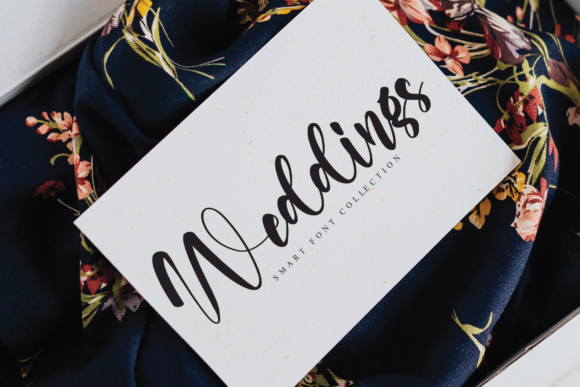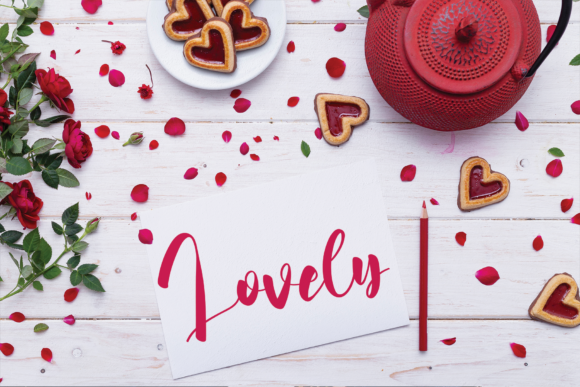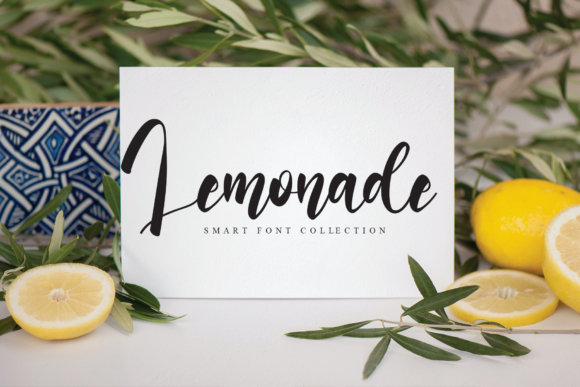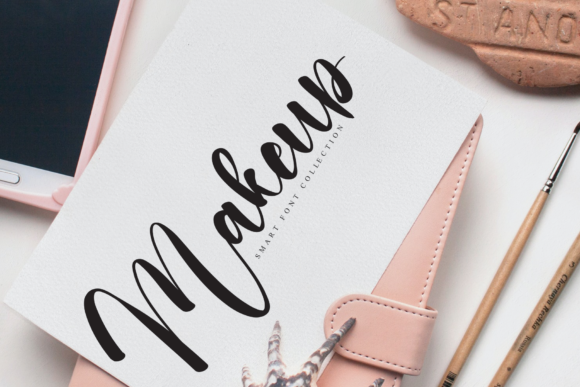
The Joy of Handwritten Touch: Discovering the Downright Font
Have you ever felt the urge to add a personal touch to your design, to make it stand out from the crowd? Maybe it was a late-night brainstorming session, or a sudden flash of inspiration while flipping through a magazine. Whatever the moment, it’s a creative spark that can make all the difference in your work. And for designers looking to add a little extra love to their projects, the Downright Font is a timeless choice that never fails to impress.
This classic handwritten font is more than just a pretty face – it’s a versatile tool that can be used in everything from greeting cards to kids’ crafts. And with its sweet, endearing quality, it’s guaranteed to add a special something to your next design. Whether you’re a seasoned pro or just starting out, the Downright Font is a valuable asset that’s sure to become a favorite in your design arsenal.
Downright Font Key Features
- Unique Characteristics: Downright Font is designed with a unique blend of modern and vintage elements, featuring intricate details and subtle texture, making it suitable for a wide range of design applications.
- Kerning and Ligatures: The font includes advanced kerning and ligature features, ensuring that text sets are visually appealing and well-spaced, even in complex compositions.
- Font Families: Downright Font is part of a comprehensive font family, offering a wide range of styles, from serif and sans-serif to script and display fonts, providing designers with endless creative possibilities.
Designer Review: Downright Font
Downright Font is a unique and interesting typeface that caught my attention. ✨ Here are some aspects where it excels:
- Experimental vibe: Downright Font has a quirky, hand-drawn feel that’s perfect for designers looking to add some personality to their projects.
- Highly legible: Despite its unusual appearance, the font is surprisingly easy to read, making it a great choice for body text or captions.
- Customization options: The font comes with a range of weights and styles, allowing designers to tailor the look to suit their needs.
- Limited suitability: Downright Font may not be the best choice for formal or traditional projects, as its unconventional design may clash with the tone.
- Difficulty in pairing: The font’s unique style can make it challenging to pair with other fonts, which may limit its versatility.
- Distortion in smaller sizes: At very small sizes, the font can become distorted and difficult to read.
Overall, Downright Font is a solid choice for designers looking to add some flair to their projects. While it may not be suitable for every occasion, its unique style and customization options make it a great addition to any design toolkit.
Tips for Getting the Most Out of Downright Font
Use Downright Font for headings and titles to create a bold and eye-catching effect.
Pair Downright Font with a clean and simple font for body text to create a striking contrast.
Experiment with different font sizes and colors to create a unique and personalized look.
Use Downright Font for:
Headings and titles in marketing materials and presentations.
Branding and logos.
Menu and navigation elements in websites and applications.
Alternatives to Downright Font
Montserrat is a sans-serif font designed by Julieta Ulanovsky. It is known for its clean and modern look, making it perfect for digital design, particularly for headings and titles. Montserrat is a great alternative to Downright Font as it offers a similar aesthetic but with a more geometric feel.
Comparison: Montserrat is more geometric and modern compared to Downright Font’s more rounded and vintage feel.
Inter is a sans-serif font designed by Rasmus Andersson. It is known for its versatility, legibility, and adaptability to various screen resolutions. Inter is a great alternative to Downright Font as it offers a clean and modern look while maintaining readability in different contexts.
Q: Can I customize the weight and style of Downright Font?
Downright Font is available in several weights and styles, including light, regular, medium, bold, and italic. You can use these pre-defined weights and styles or customize them using a font editor or a design application that supports font manipulation. However, be aware that customizing the font may affect its readability and overall design.